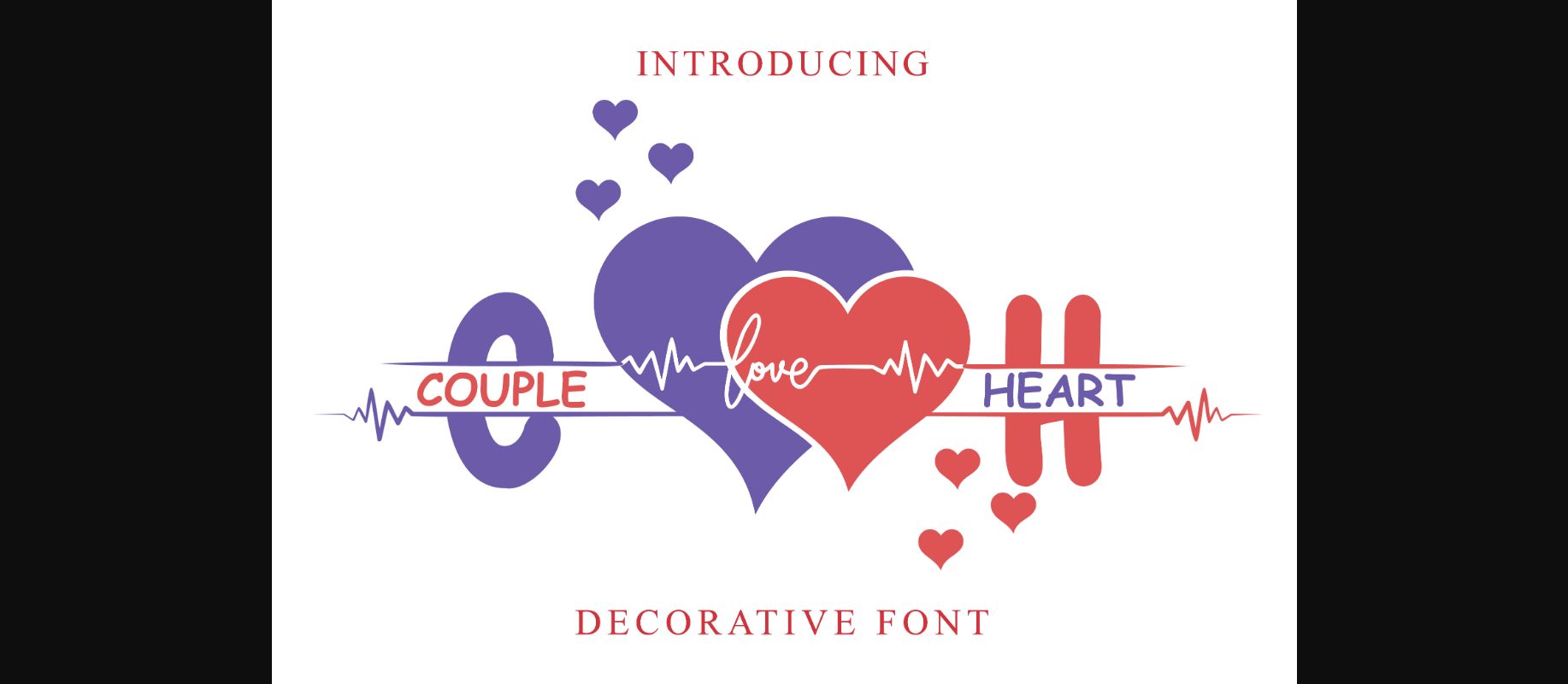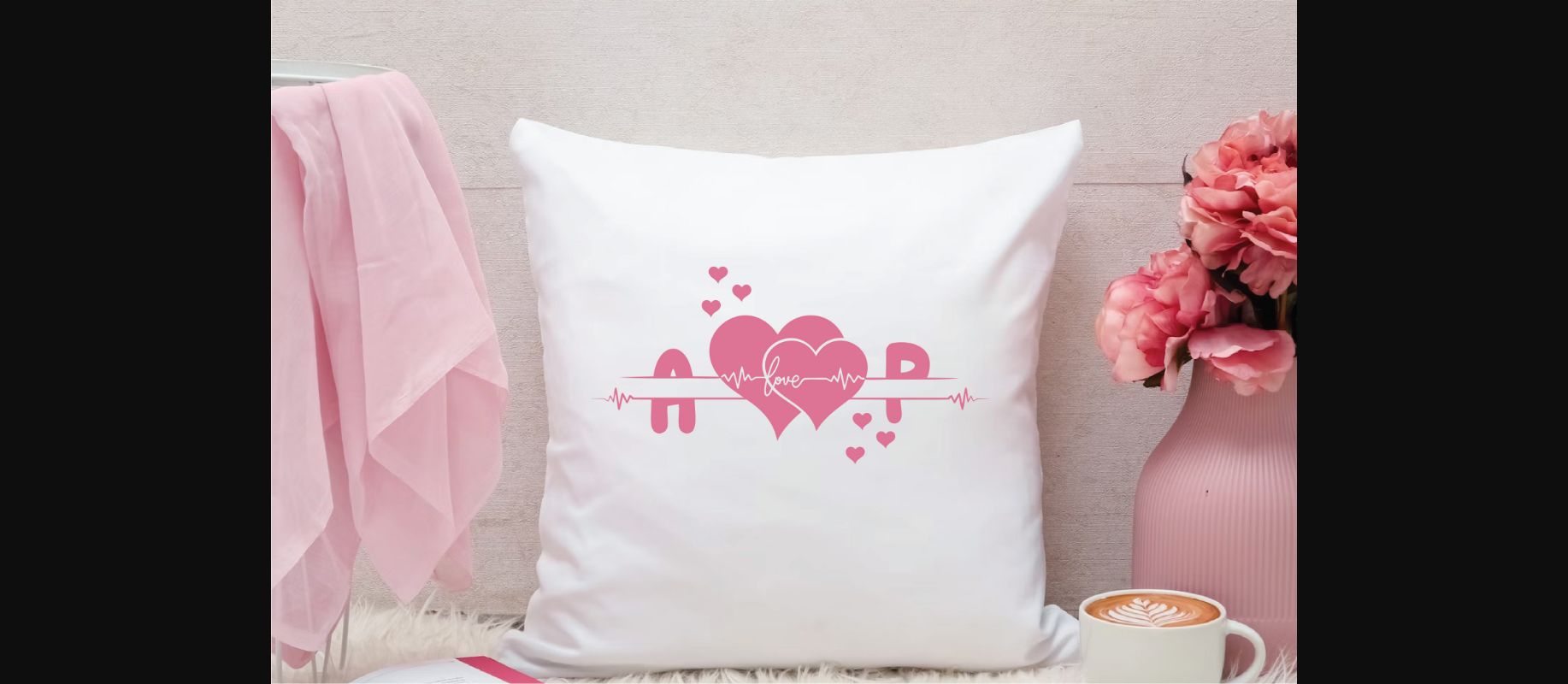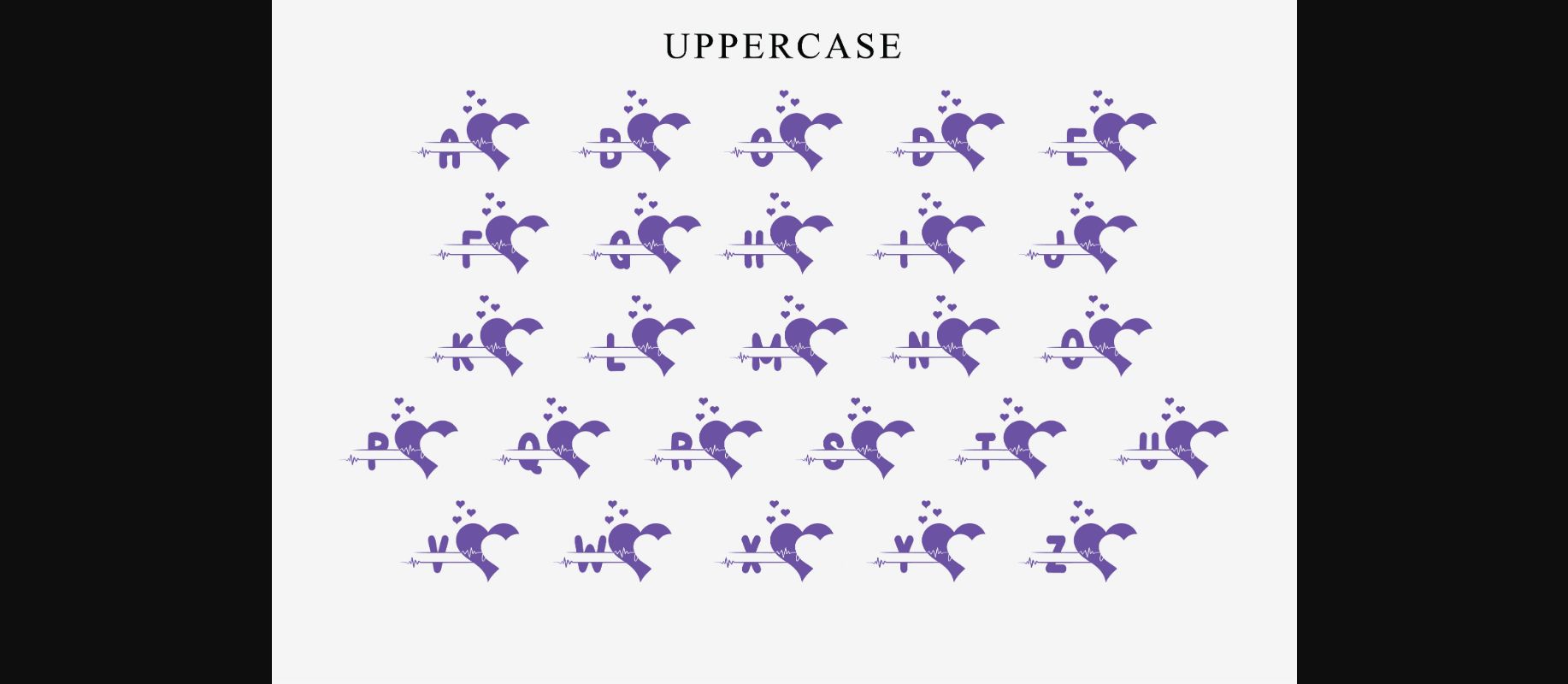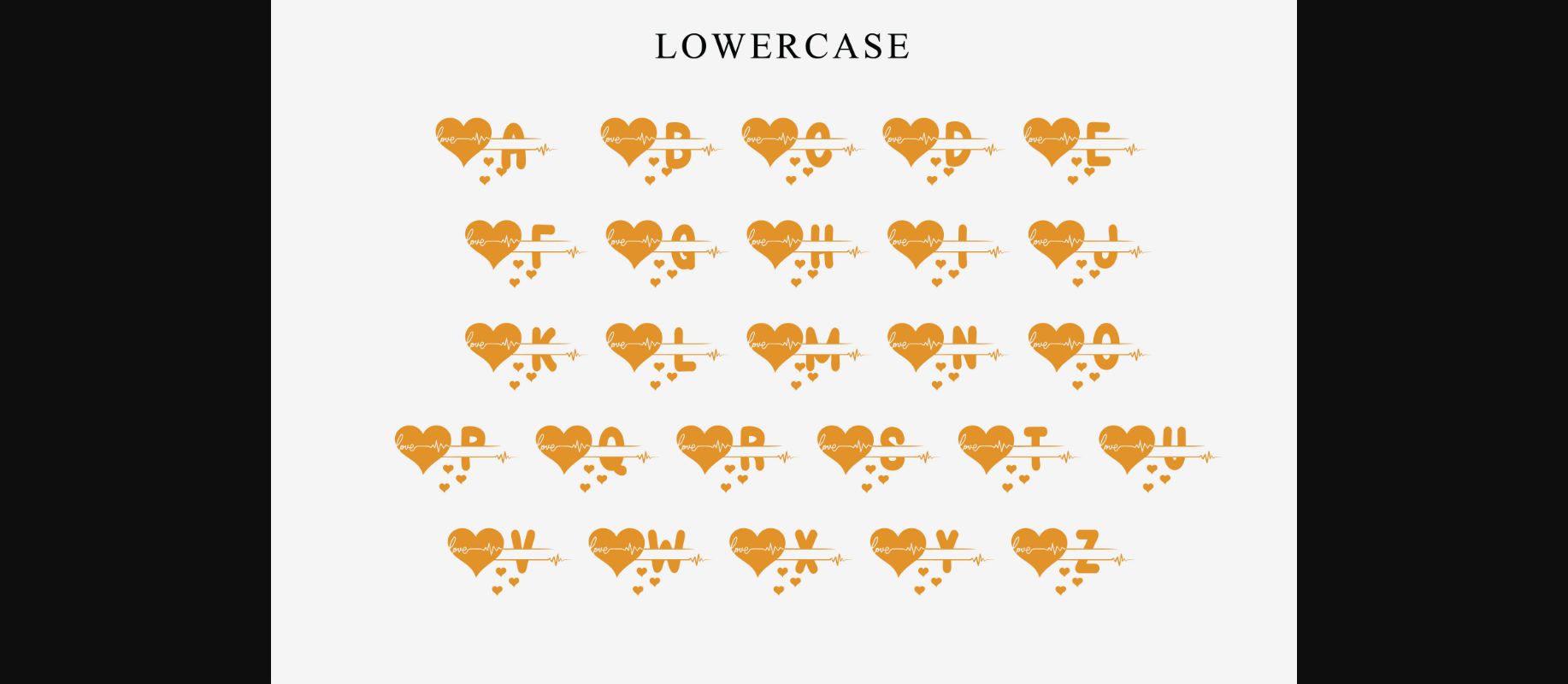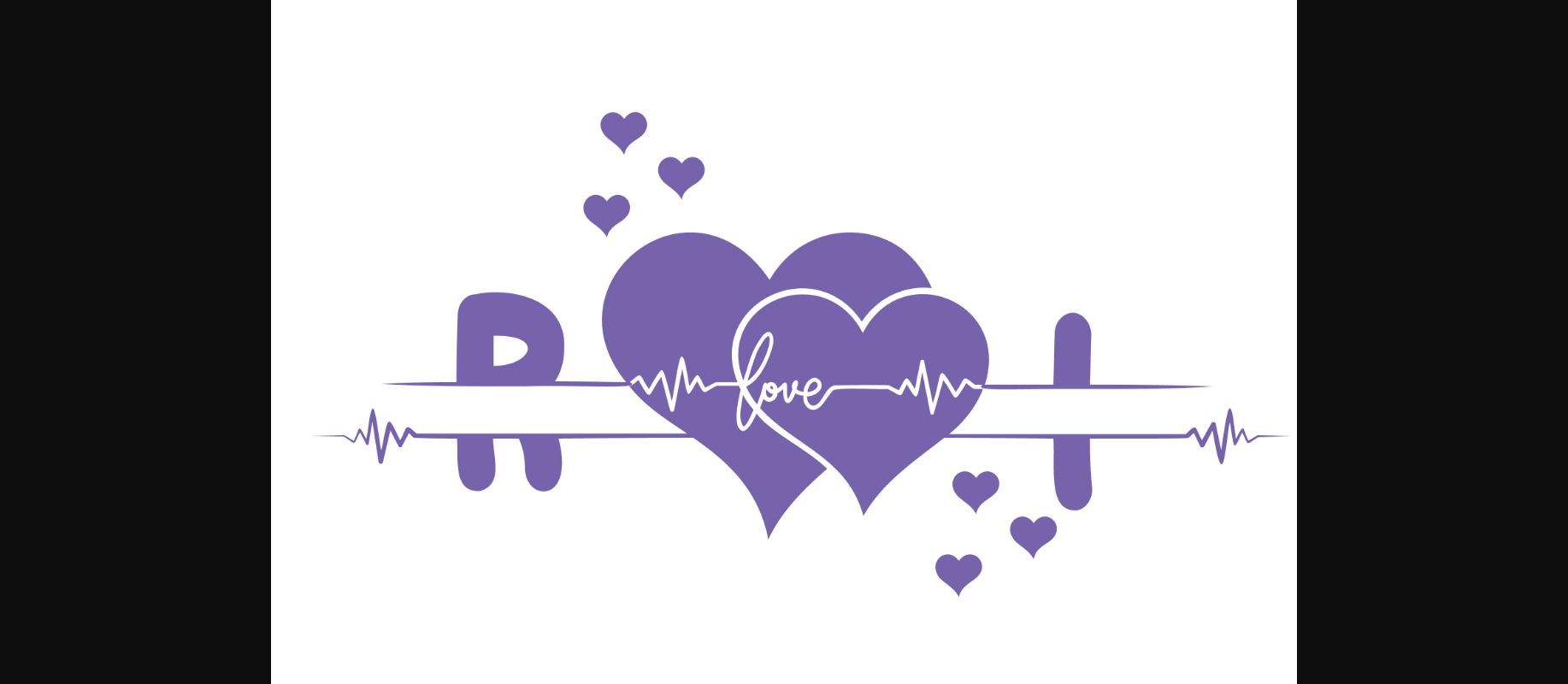
Couple Heart is a unique and adorable decorative monogram font. It will beautifully complement your Valentine’s Cards, t-shirts, invitations, book covers, posters, etc.